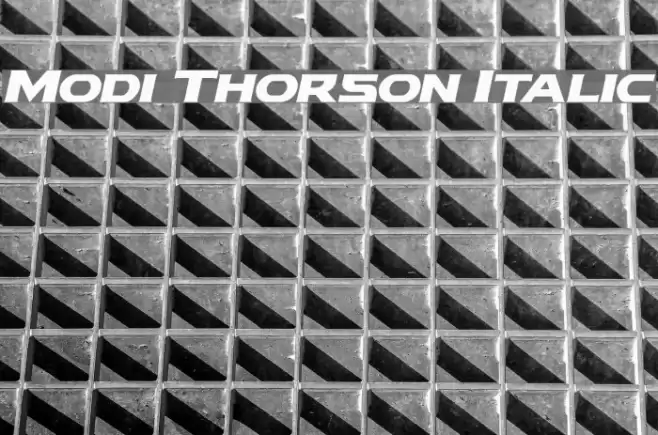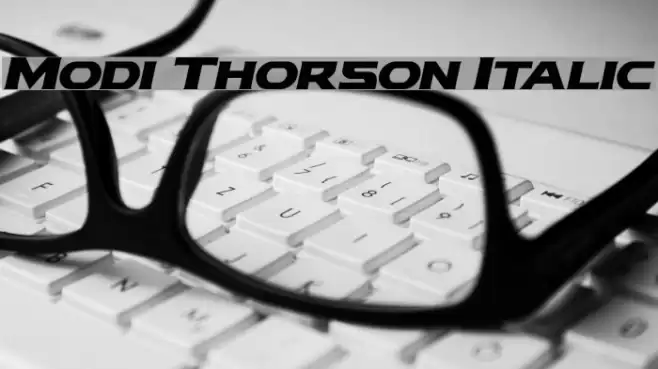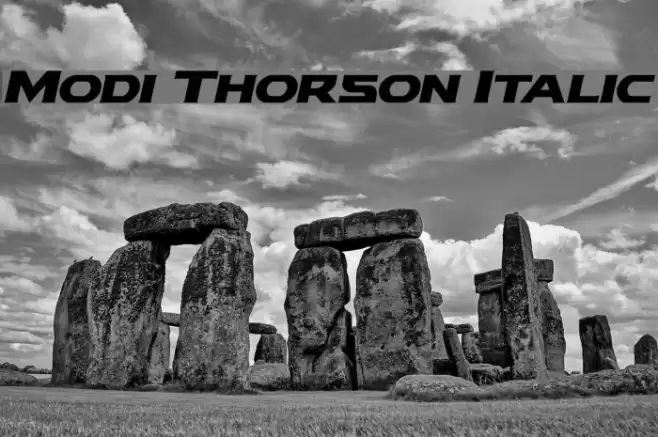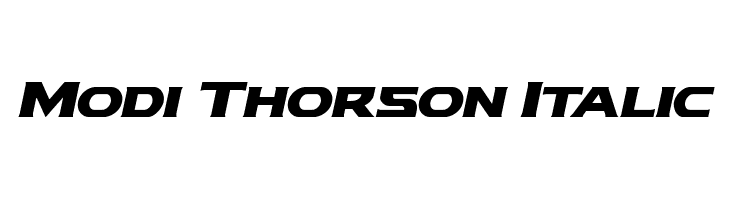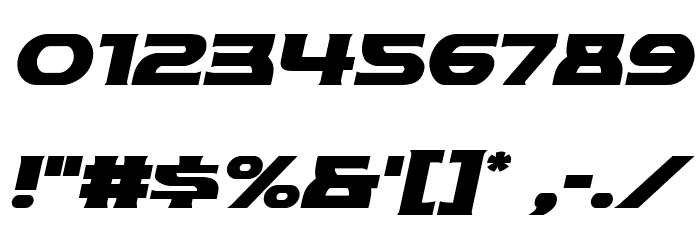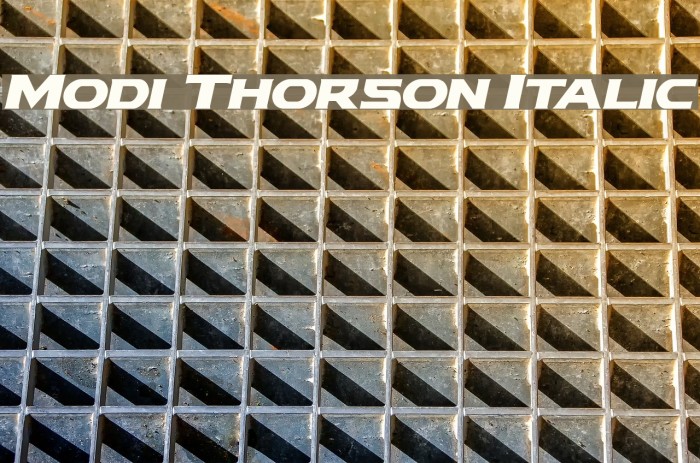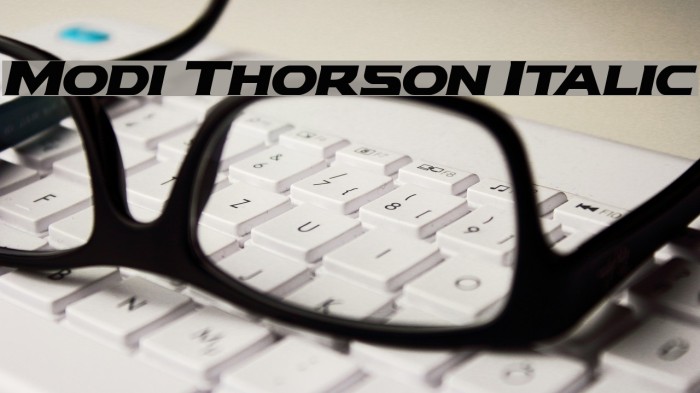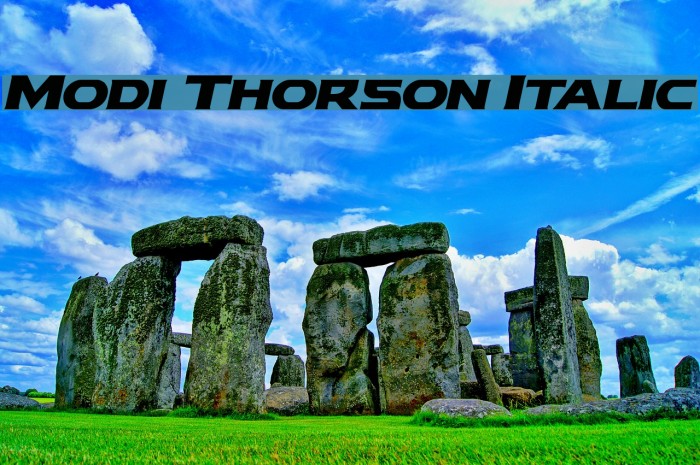
Modi Thorson Italic Font
Modi Thorson Italic Description
This font features a bold and dynamic italic style, characterized by its strong, angular lines and forward-leaning posture. The uppercase letters are particularly striking, with sharp edges and a sense of movement that conveys energy and modernity. The numerals and special characters maintain this bold aesthetic, ensuring consistency across all glyphs. The font's design is both assertive and sleek, making it suitable for projects that require a contemporary and impactful look.
A bold, dynamic italic font with strong, angular lines and a modern aesthetic from Uncategorized fonts.
- Proposed Projects: Ideal for sports branding, dynamic posters, modern advertising, and any project needing a bold, energetic typeface.